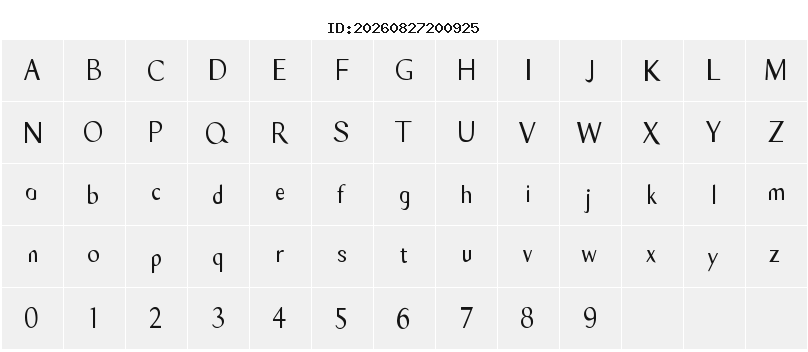
• Font Name: Tyro Sans
• Designer: Kirk Shelton
About Tyro Sans.ttf
Tyro Sans.ttf is a modern, elegant sans-serif font designed for ultimate readability and visual harmony. Perfect for branding, headlines, web design, and print materials.